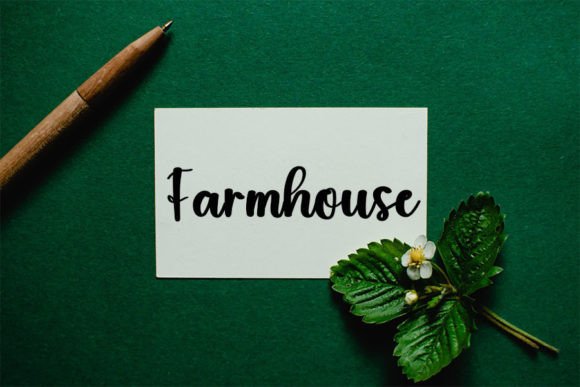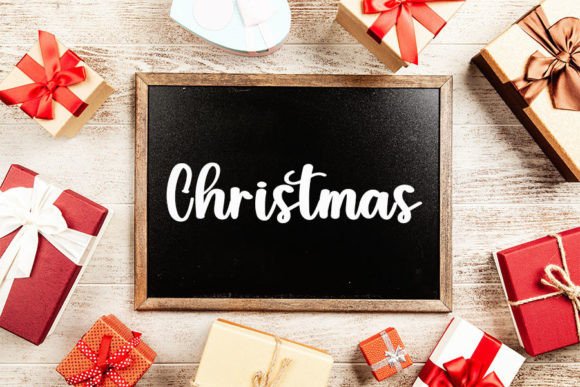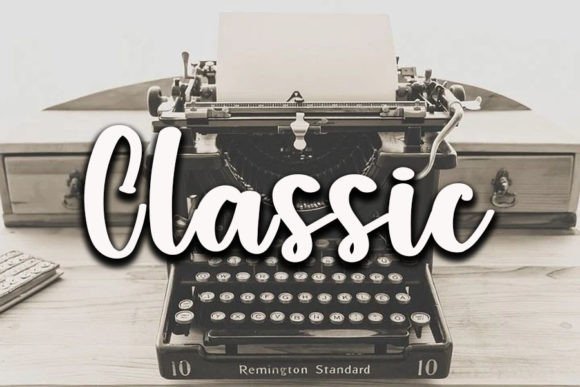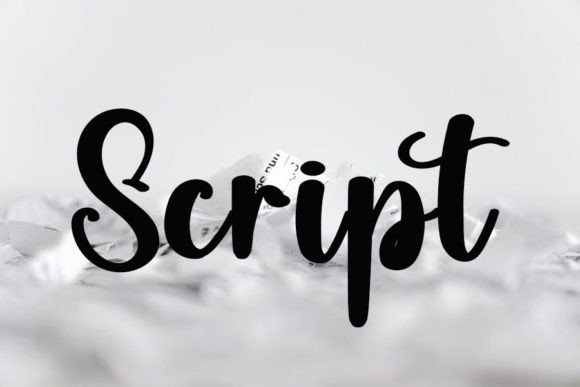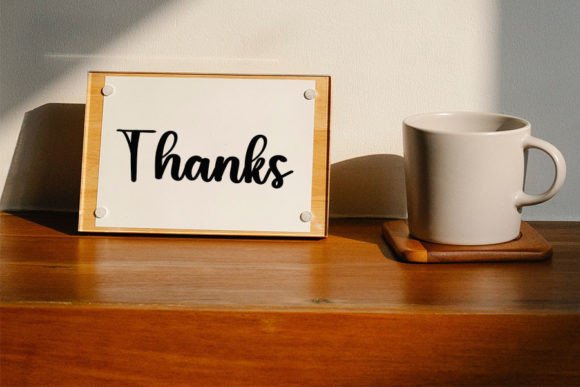
Snowman Font
About Snowman Font
Snowman font is a magical handwritten typeface crafted with elegance and a subtle quirky flair. Designed to bring a fresh, unique personality to your creative projects, this font perfectly blends sophistication with a handcrafted look. Whether you’re working on logos, branding, social media content, or DIY crafts, Snowman font adds an inviting and memorable touch to your designs.
Elegant and Clean Design
This font features smooth, flowing strokes that mimic natural handwriting. Snowman’s clean lines provide excellent readability while its quirky elements add character and warmth. The result is a stylish font that brings life and personality to any project, whether digital or print.
Perfect for Logos and Branding
Snowman font works beautifully for branding projects that require a distinctive and personal touch. It suits fashion brands, boutique businesses, handmade products, and lifestyle companies looking to establish a memorable identity. With its elegant yet approachable style, this font helps you craft logos and branding materials that truly resonate with your audience.
Great for Social Media and DIY Projects
In the fast-paced world of social media, engaging visuals matter more than ever. Snowman font helps you create eye-catching posts, advertisements, and stories with its charming handwritten appeal. Additionally, it’s an excellent choice for invitations, greeting cards, product packaging, and other DIY crafts that benefit from a handcrafted look. Snowman font adds a cozy and authentic feel, perfect for connecting with your followers or customers.
Versatile and Readable
Despite its artistic style, Snowmanfont remains highly readable across various sizes and formats. Whether used for headlines, logos, or smaller text, it maintains clarity without compromising on design. This makes it versatile for both digital content and printed materials, ensuring your message is always delivered beautifully.
Why Choose Snowman Font?
Snowmanfont offers a delightful combination of elegance and charm that makes it ideal for a wide range of creative projects. Its clean yet quirky style enhances logos, branding, social media graphics, and DIY crafts alike. Adding Snowmanfont to your design toolkit means giving your projects a unique, handcrafted vibe that stands out from the crowd.
Bring Your Designs to Life with Snowman Font
Add warmth and sophistication to your projects by incorporating Snowmanfont. Its magical and elegant style will elevate your logos, branding, social media posts, and crafts. Discover how this handwritten font can transform your creative ideas into authentic and beautiful designs.